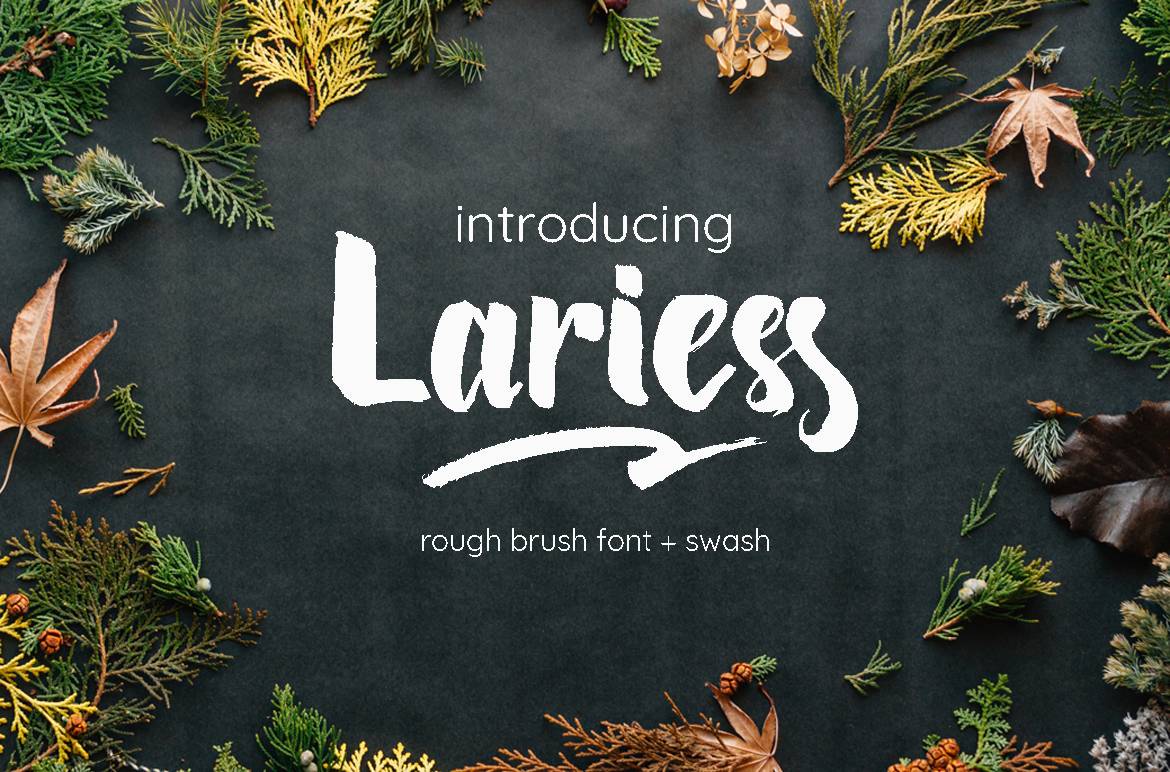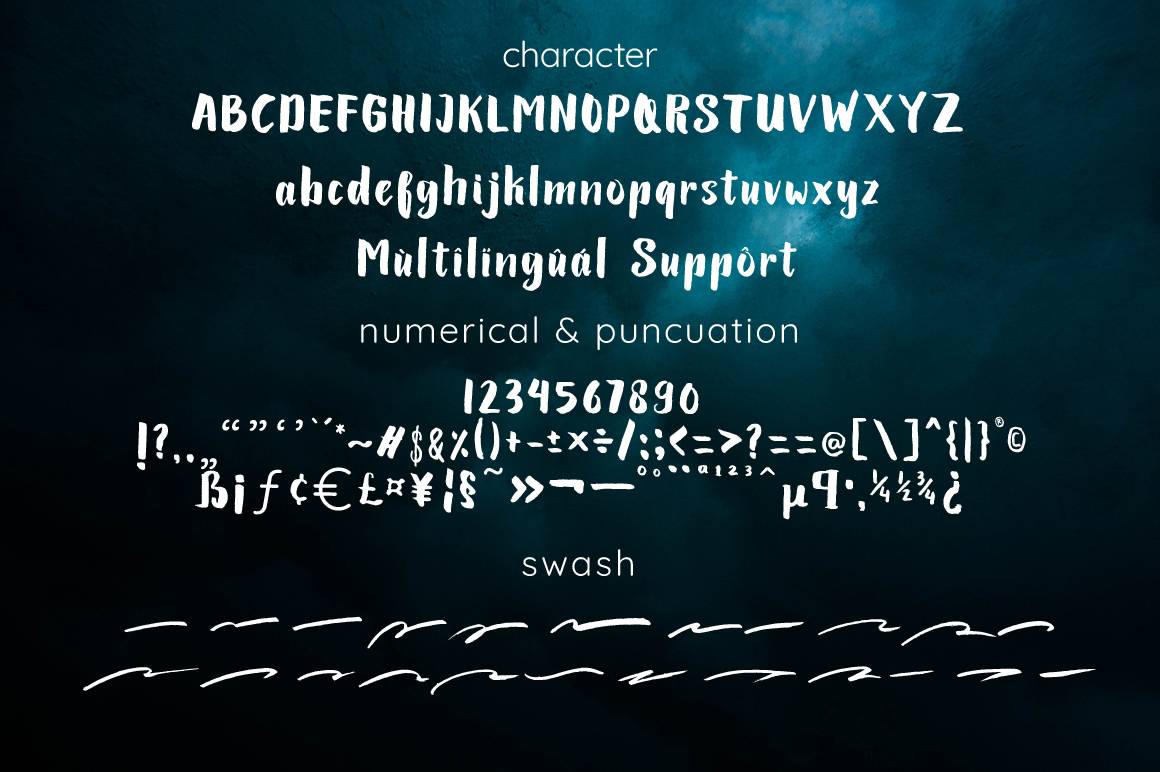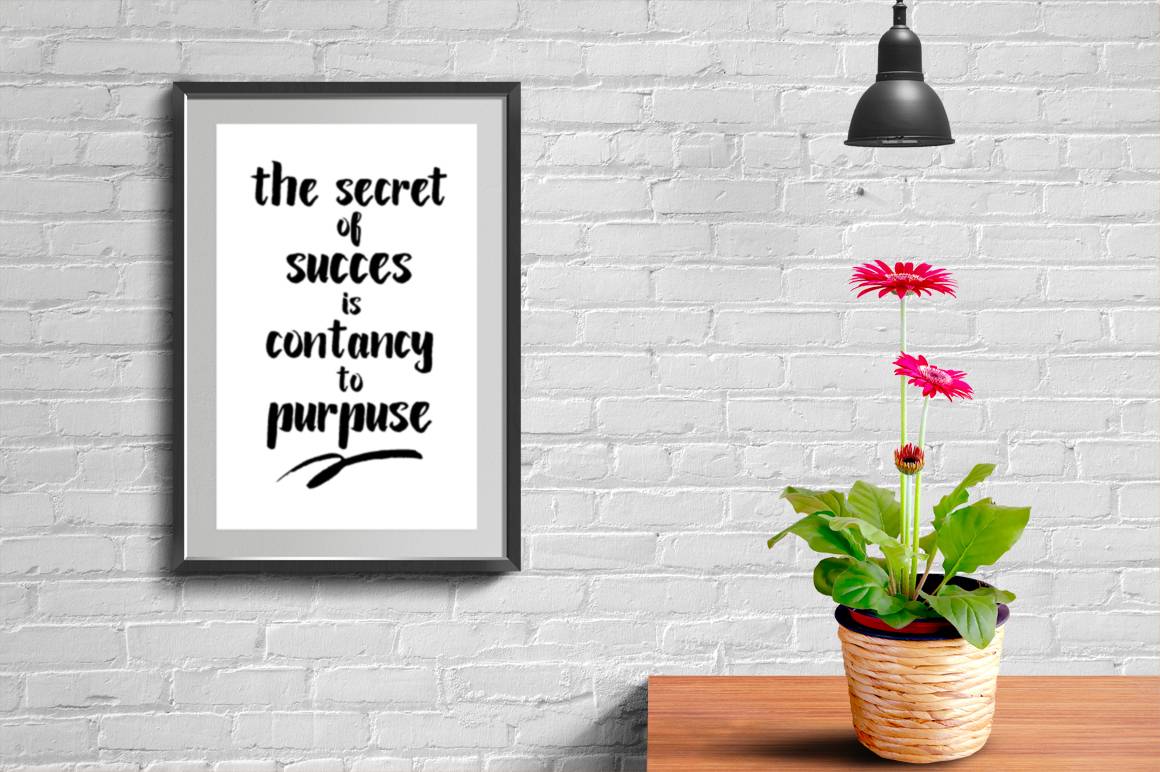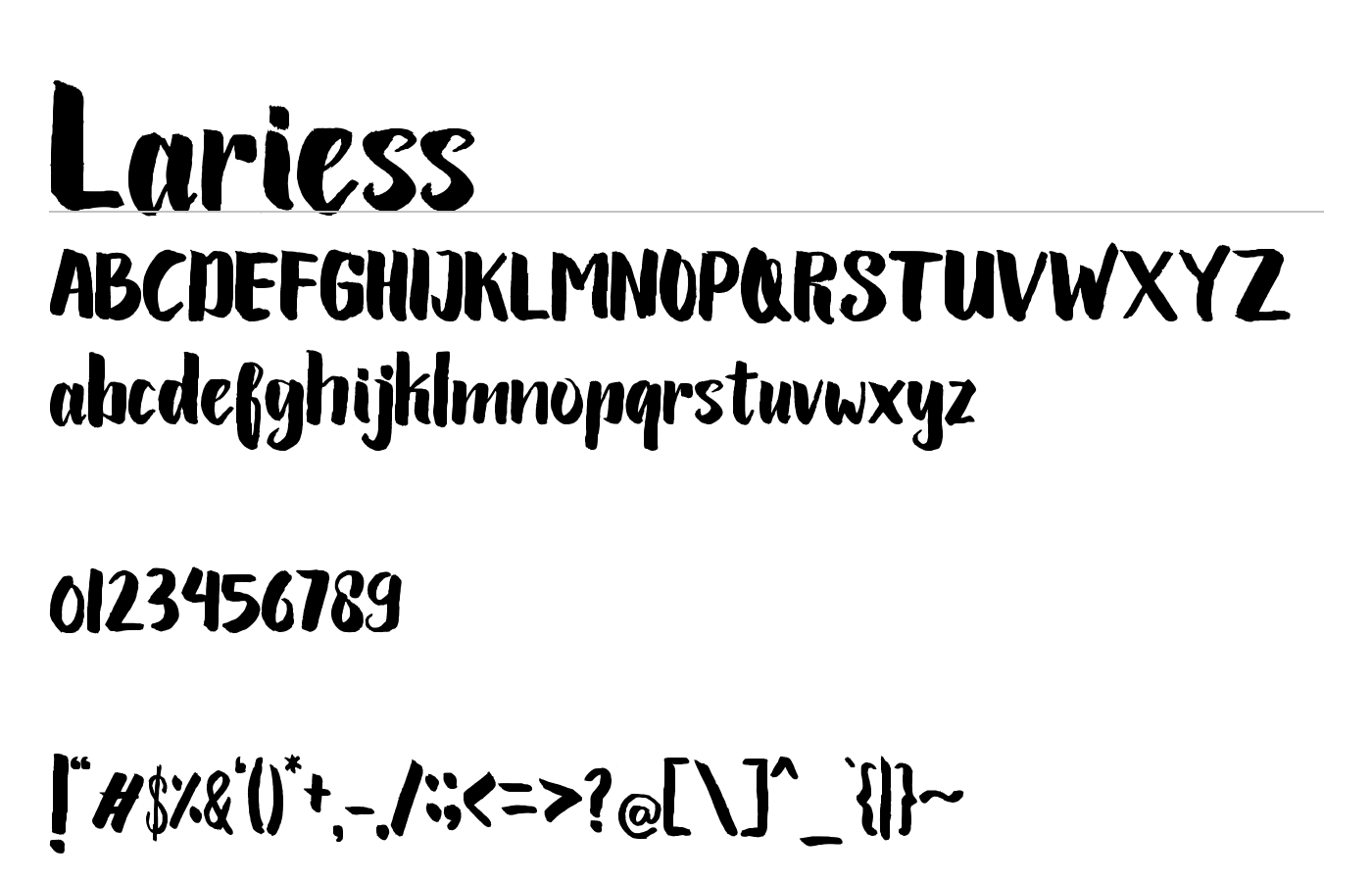
Lariess is a bold, hand-brushed script font with a strong, expressive character and a slightly irregular, organic texture that feels both playful and artistic. Its high contrast strokes and tall x-height give it a lively presence, making it ideal for creative branding, posters, and eye-catching headlines where personality and a handcrafted feel are desired. This font works best for projects that want to convey energy, creativity, and a casual yet impactful style.
Lariess Font Font
About Lariess Font Font